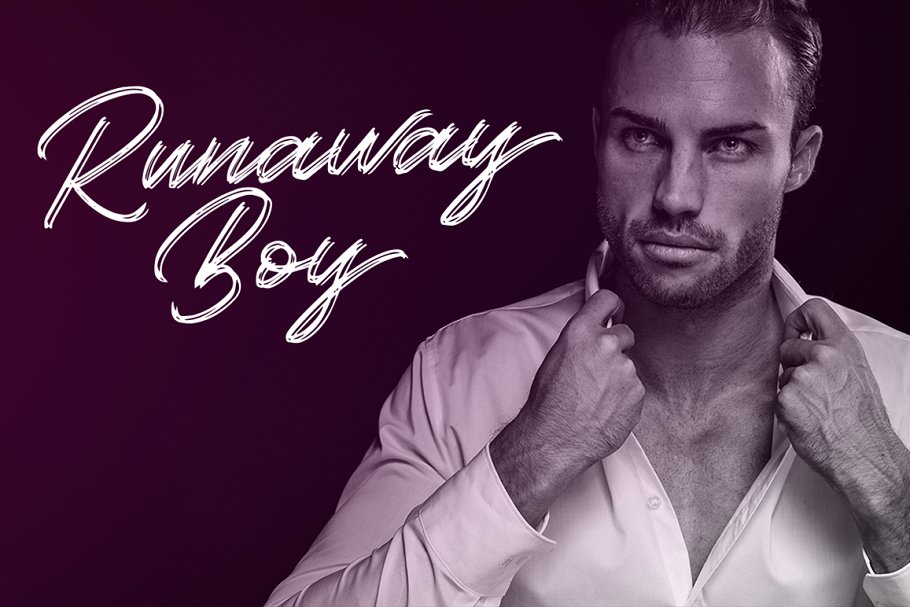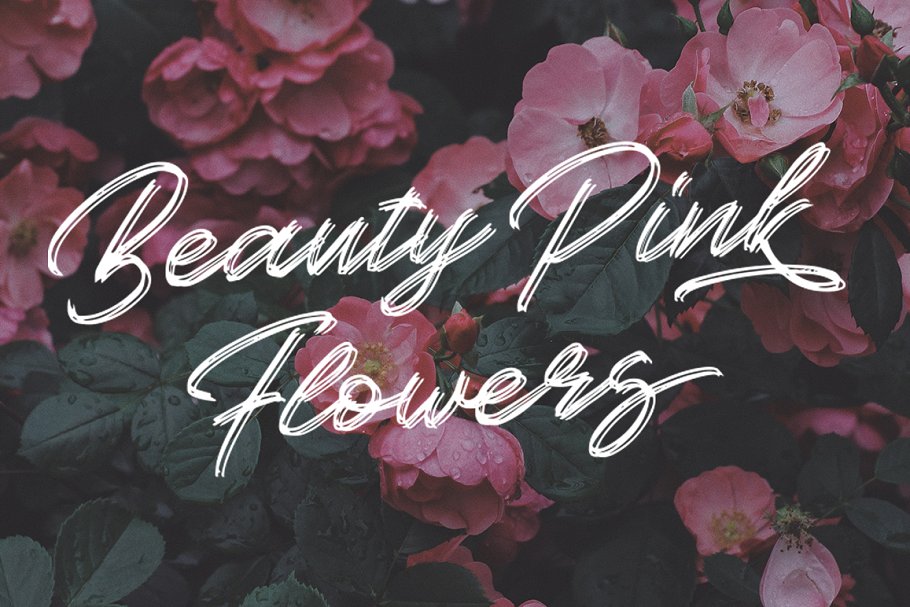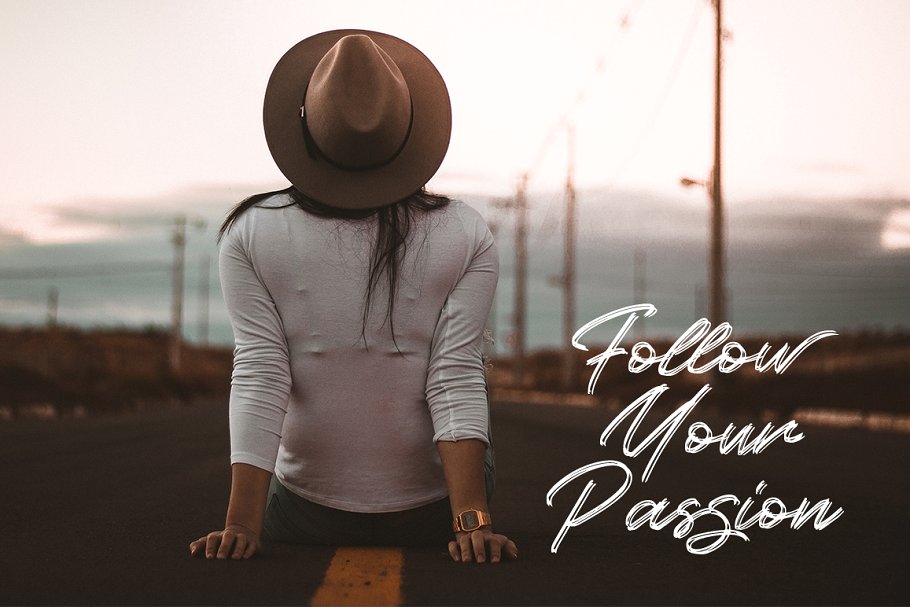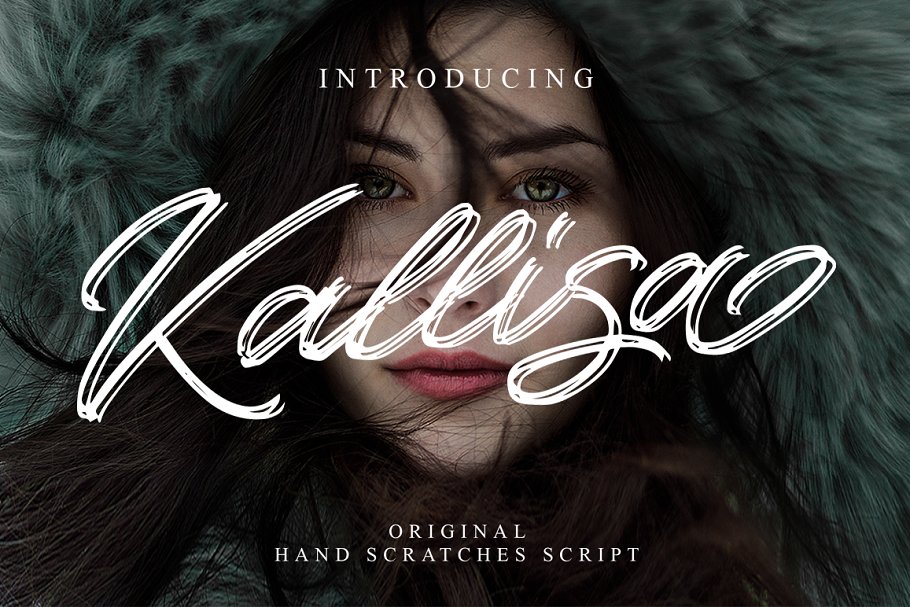
Kallisa Script Font
This free font package is a modern brush font. Introducing Kallisa Font. It is designed and shared by Blankids Studio. Raidemith is a very fresh brush font, written in fast motion using zebra pens with true handwriting nuances and unique handmade styles. This font will perfect for many different project ex: quotes, logo, blog header, poster, banding, fashion, apparel, letter, invitation, stationery, etc…